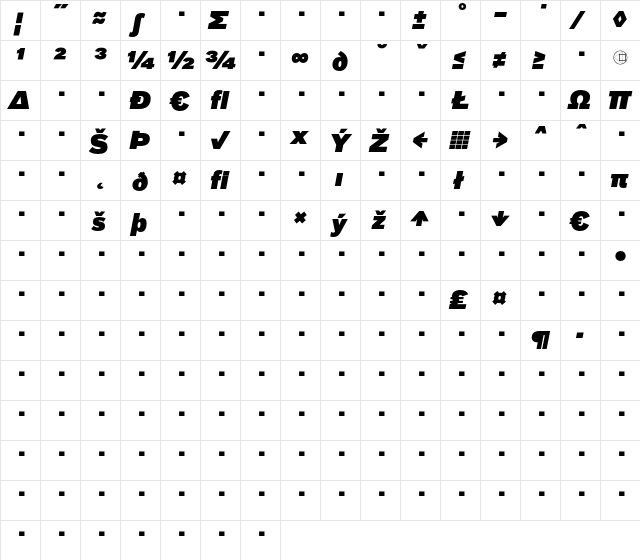
BauLF-SuperItalicExpert Regular
Design Context for BauLF-SuperItalicExpert Typeface
BauLF-SuperItalicExpert takes a measured approach to typography — its balanced proportions and neutral character make it a reliable workhorse for both digital and print work. Its italic angle brings a sense of urgency and motion to the letterforms.
Pro Tip: Try BauLF-SuperItalicExpert for annotation and caption copy alongside an upright companion — the contrast in angle creates a dynamic but ordered typographic system.